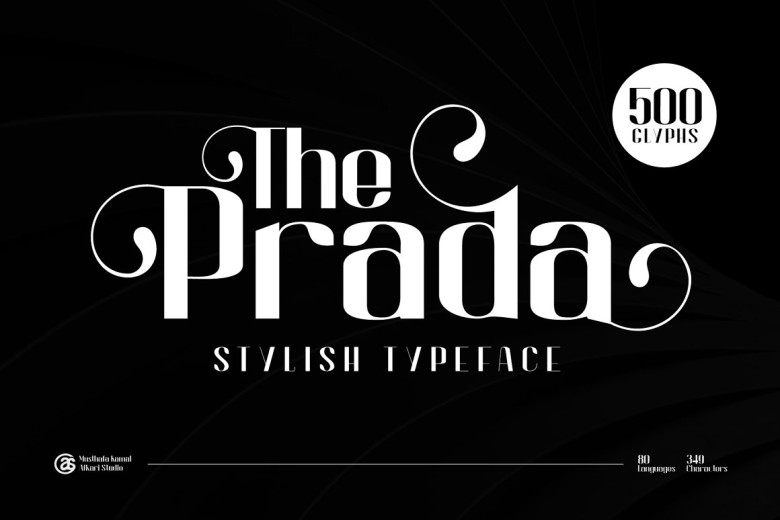
The Prada Font
The Prada Sans Serif Font is an elegant contemporary font with strong stand-alone aesthetics that works well in modern san serif designs, or can even stand alone as a statement font. With a variety of characters as well as stylish ligatures for more logical layout,
Prada Modern Style Sans Serif Font can be used in numerous graphic designs for headlines, logo, body text, magazines, quotations or any other use you can think of – perfect and much more!
The Prada Sans Serif Font